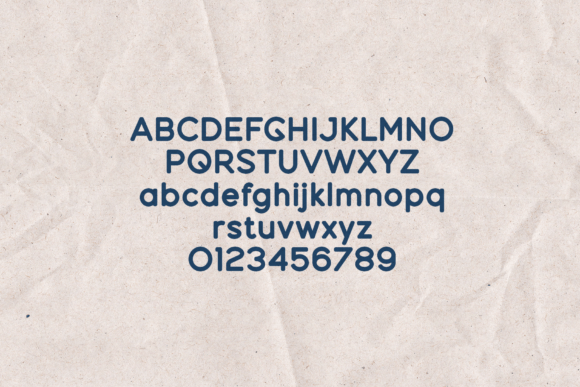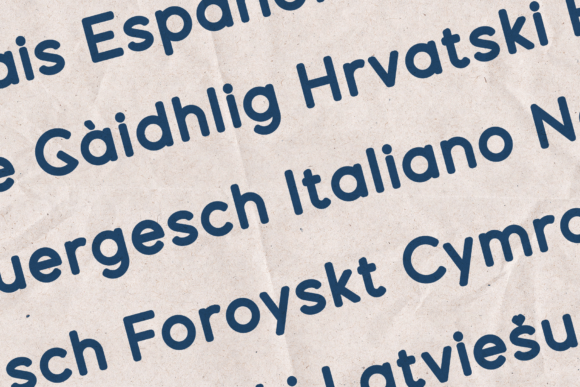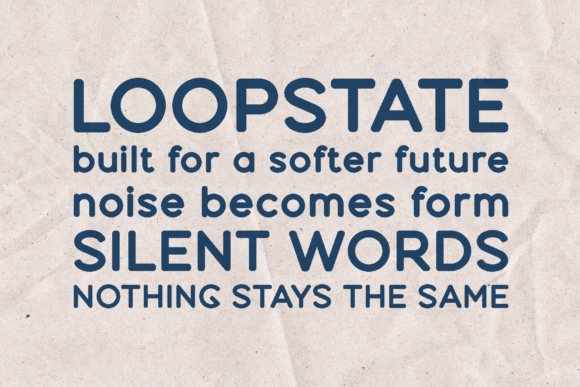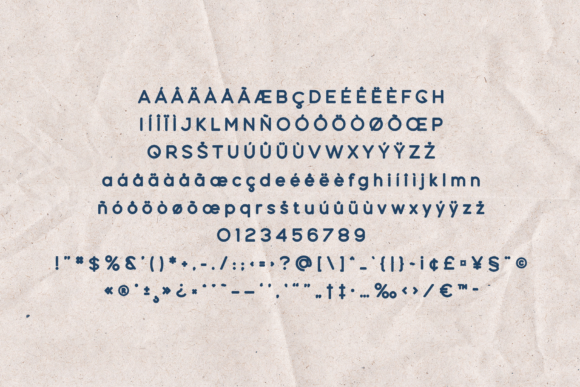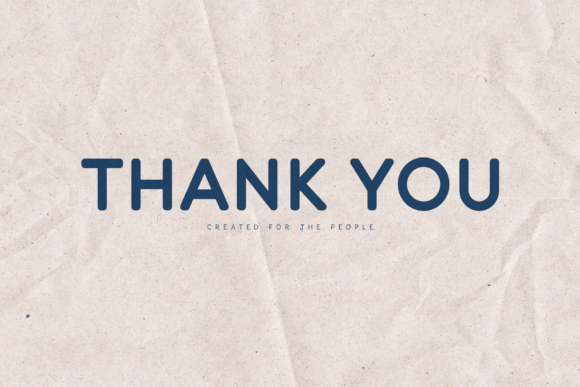
First Impressions: A Modern Geometric Marvel
Espial Font is a modern geometric sans serif typeface designed specifically for clarity, balance, and contemporary design systems. Its minimal construction makes it extremely versatile across various applications, from branding and editorial layouts to digital interfaces and modern visual identities. The letterforms are highly readable while still carrying a distinctive personality that works well in both large headlines and everyday text.
- ✨ Clarity and Legibility: Espial’s clean lines and geometric construction make it incredibly readable, even at smaller font sizes.
- ✅ Versatility: Its minimalistic design allows it to adapt seamlessly to various design contexts, from digital screens to print materials.
- 💡 Distinctive Personality: Espial has a unique charm that sets it apart from more generic sans serif fonts, making it perfect for brands looking to establish a strong visual identity.
While Espial Font is an excellent choice for many design projects, there are a few minor considerations to keep in mind:
- 🤔 Limited Expressiveness: Due to its geometric nature, Espial might not be the best fit for projects requiring a high degree of expressiveness or emotional resonance.
- ⚠️ Font Size Limitations: While highly readable, extremely small font sizes (below 8pt) might lose some of the finer details that make Espial stand out.
The Designer Behind Espial: A Story of Inspiration
The creation of Espial Font can be attributed to a designer with a passion for modernist principles and a keen eye for detail. Inspired by the works of early 20th-century typographers and the digital revolution in design, the creator aimed to craft a font that embodies the spirit of contemporary design while maintaining timeless elegance.
| Is Espial suitable for body text? | Yes, Espial’s legibility and clean design make it an excellent choice for body text in both digital and print materials. |
| Is Espial optimized for digital use? | Yes, Espial is designed with digital interfaces in mind and performs well across various screens and resolutions. |